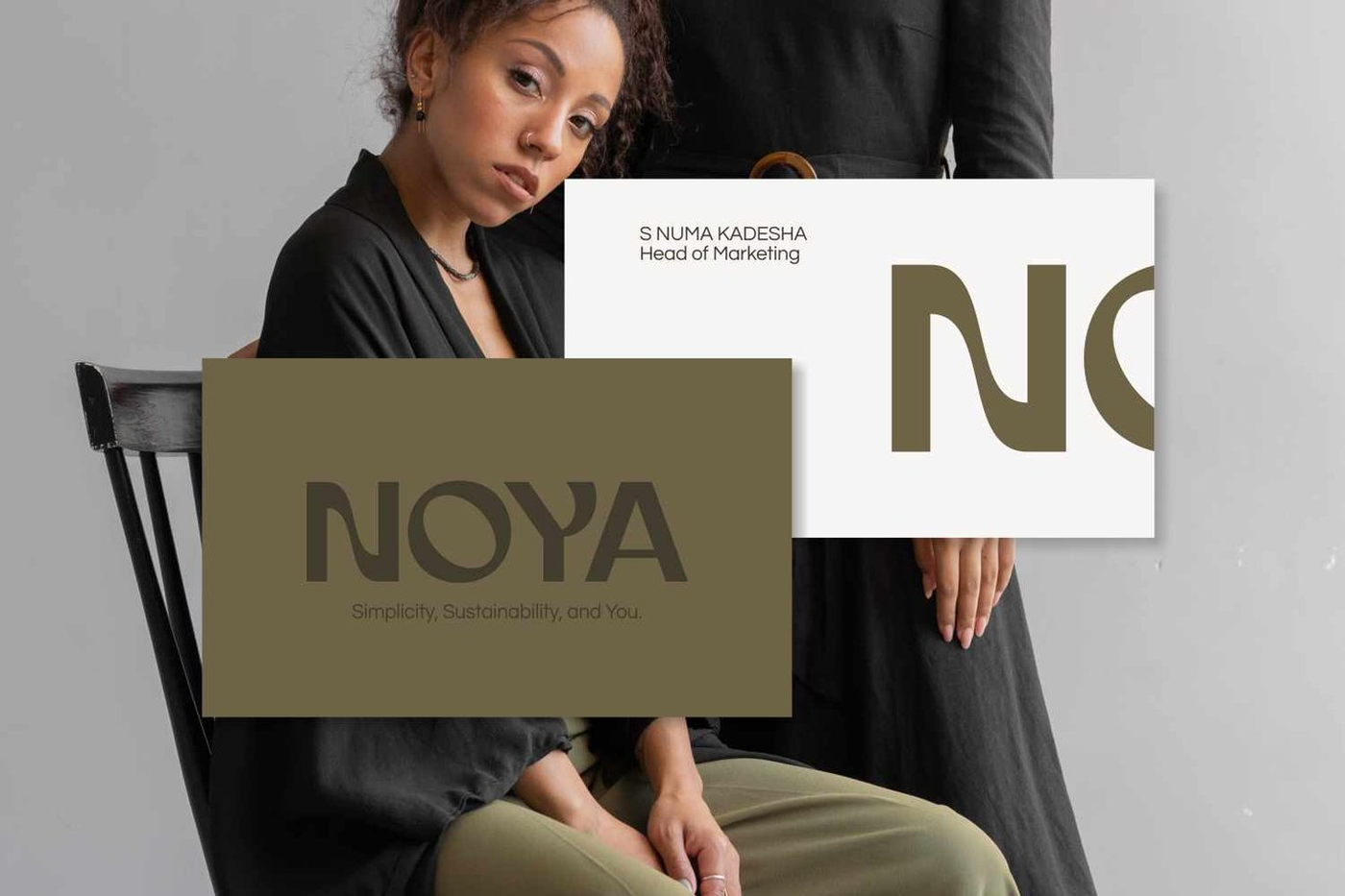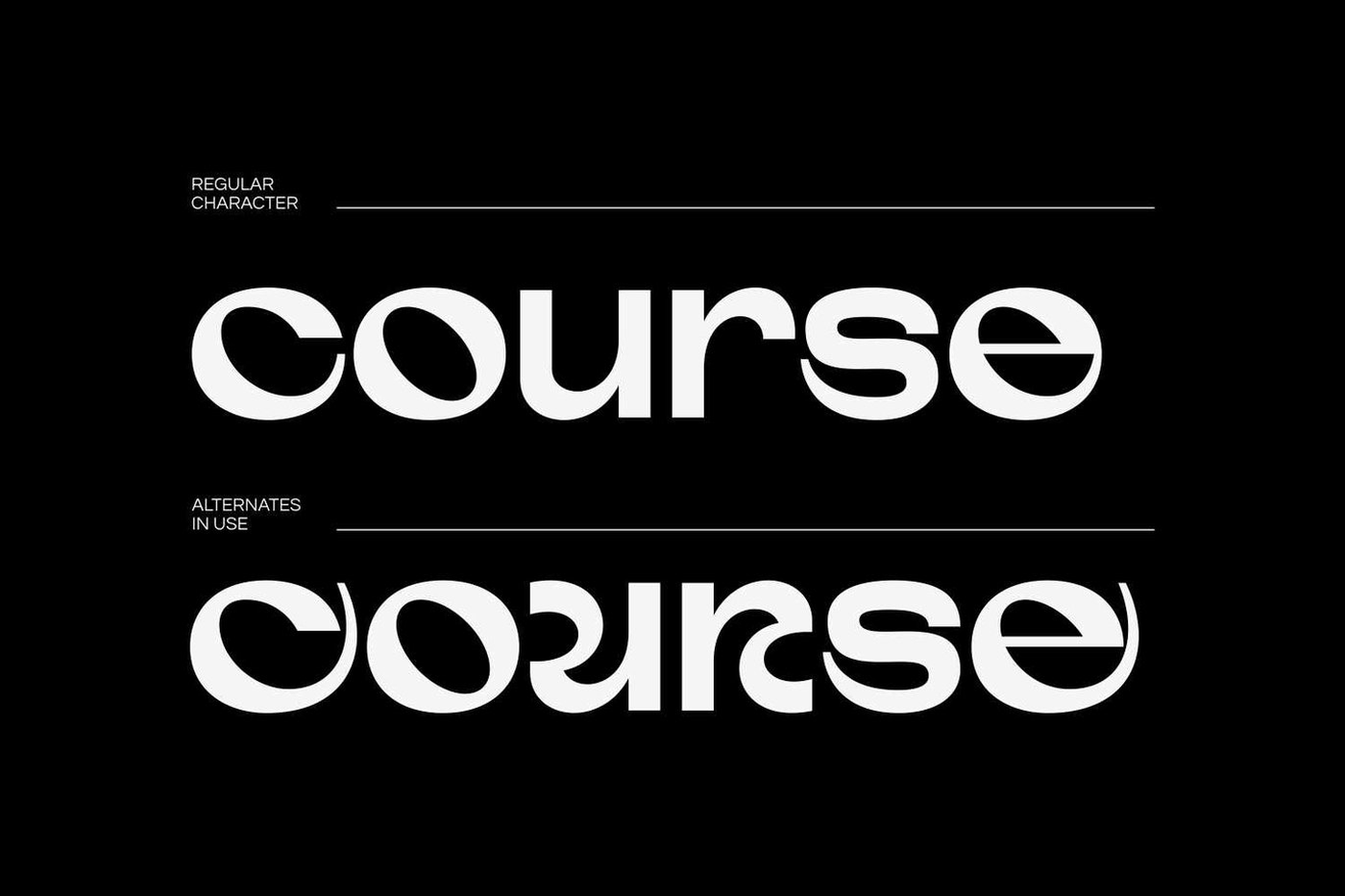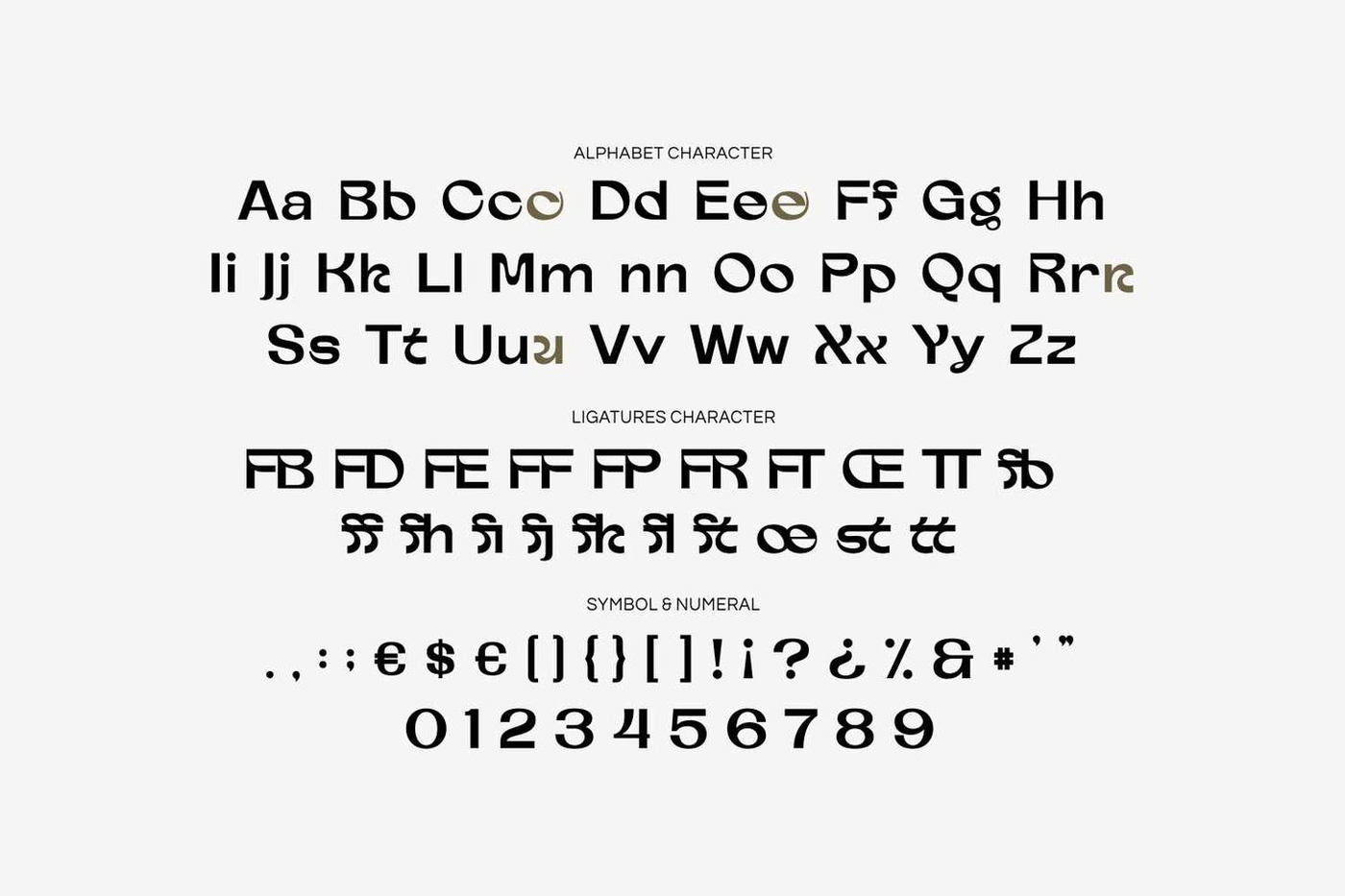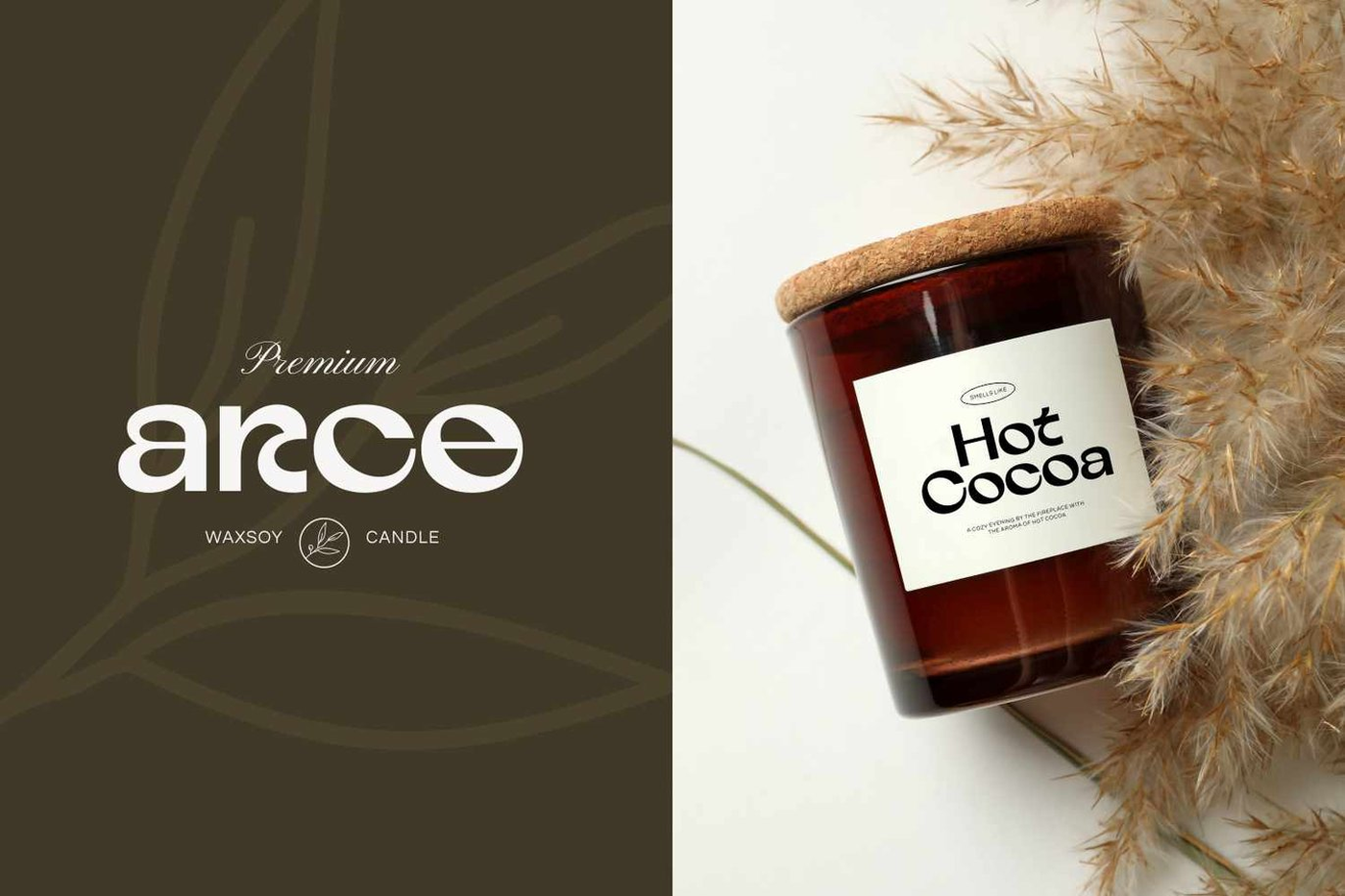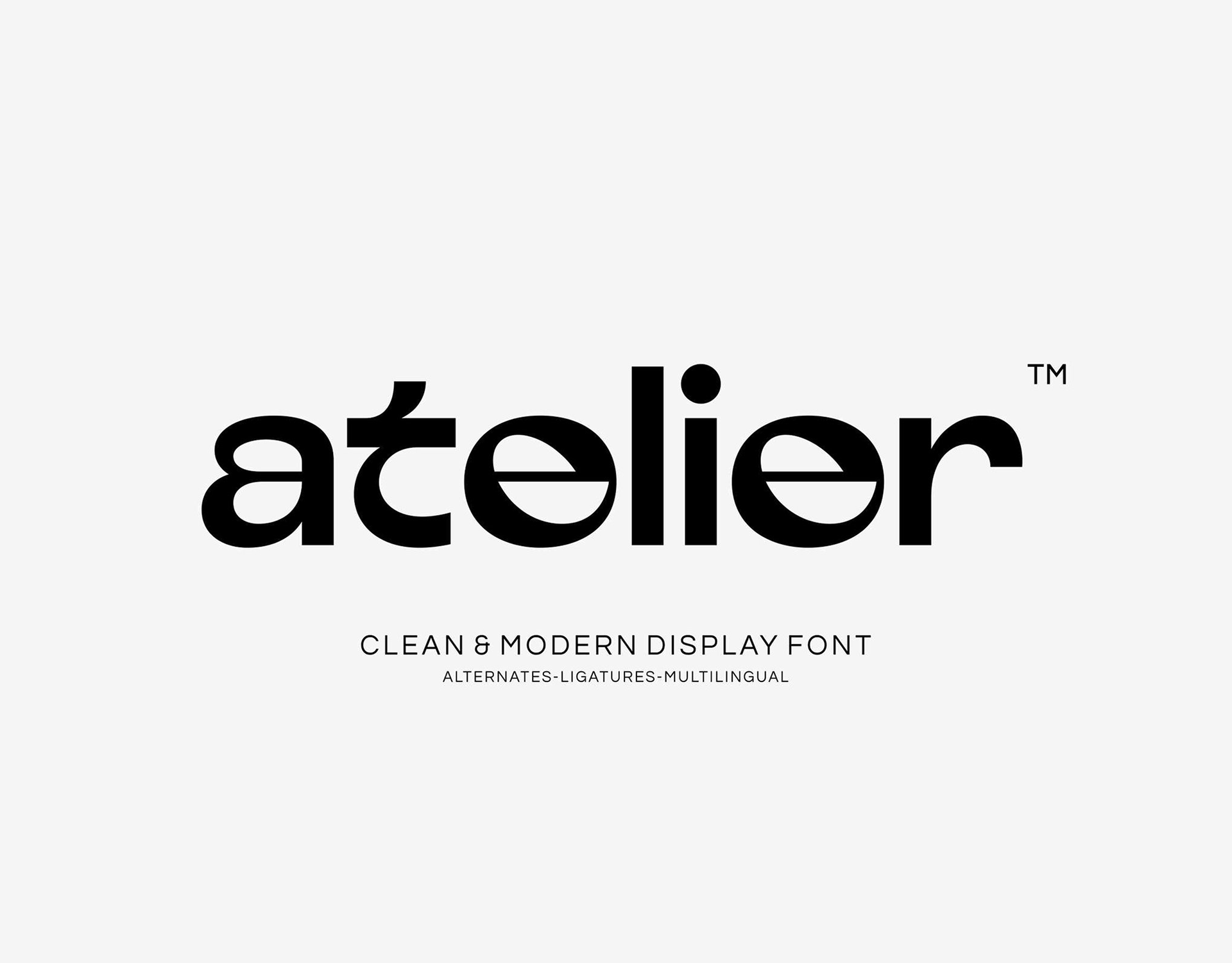
Atelier - Clean Modern Display Font
Atelier clean modern display font with contemporary that blends modernist geometry with artistic flair. This font a sleek and versatile sans-serif typeface crafted for designers who seek simplicity with a touch of sophistication. Perfect for logos, product packaging, headlines, website headers, posters, headline, title, editorial, modern branding, packaging, sophisticated headlines, fashion, beauty, or digital branding needs—clean, current, and confidently understated.